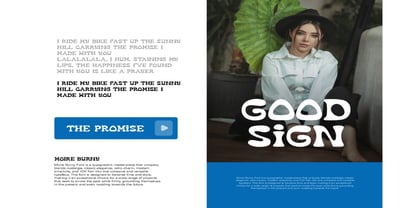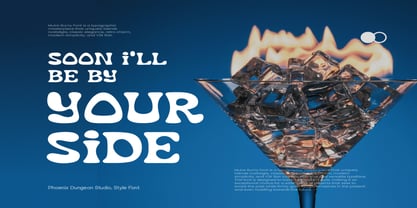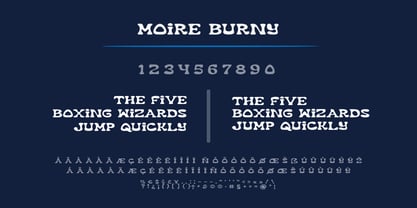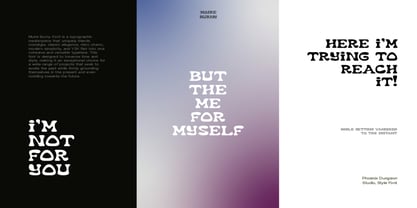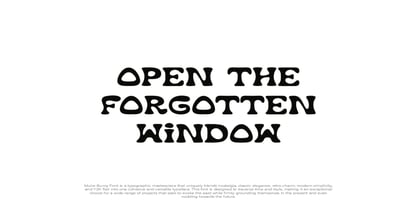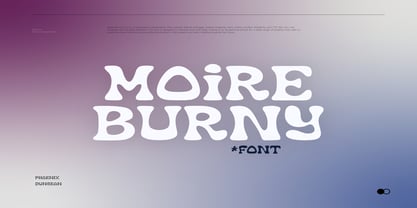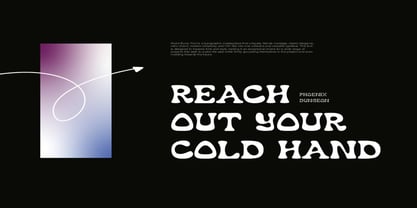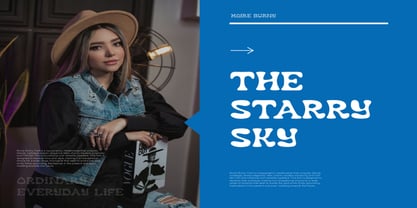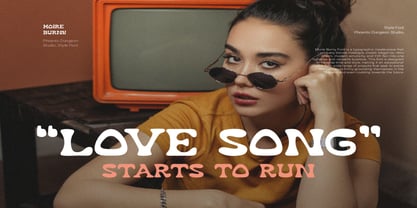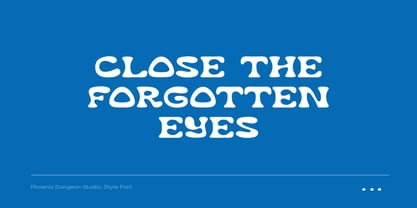
Moire Burny
The Moire Burny Font Family was designed by Alif Naufal Muzakki and published by Phoenix Group. Moire Burny contains 1 styles. More about this family
Moire Burny is a bold retro display font that brings back the groovy vibes of the 70s and Y2K era. With its playful curves, funky shapes, and chunky style, this font is perfect for designers who want to capture a nostalgic yet trendy aesthetic. Moire Burny works great for posters, album covers, logos, apparel, packaging, social media graphics, and creative branding projects. Whether you’re designing a vintage-inspired flyer or a modern retro logo, this font delivers a strong personality that stands out. Its decorative and versatile style makes it a must-have for anyone looking to blend nostalgia with a fresh, contemporary twist.